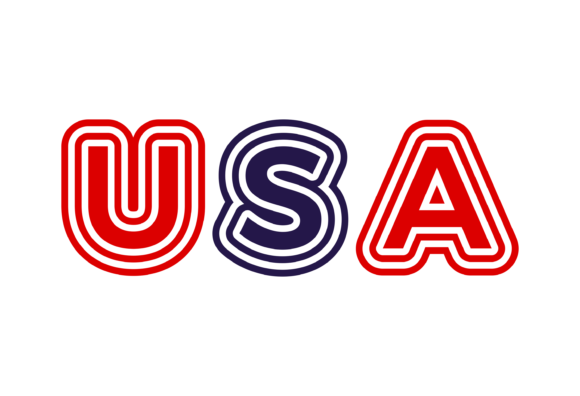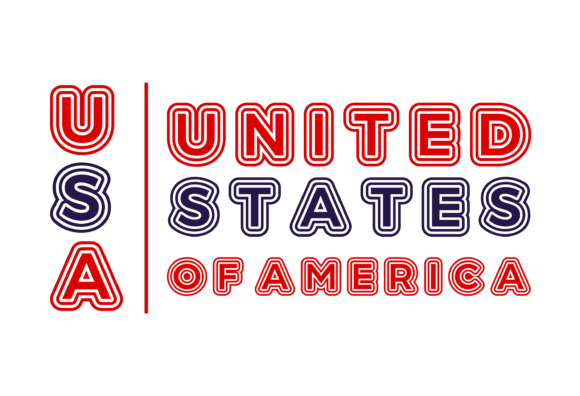
Dusky Double Bubble Font: Elevate Your Designs with a Modern Display Font
Are you tired of using the same old fonts in your designs? Do you want to take your creative projects to the next level? Look no further than the Dusky Double Bubble font! This modern display font is perfect for designers and crafters who want to add a touch of sophistication and whimsy to their work.
What is Dusky Double Bubble Font?
Dusky Double Bubble is a modern display font that features a unique and eye-catching design. The font is characterized by its double-bubble style letters, which give it a playful and fun vibe. The font is perfect for use in a variety of design projects, including posters, flyers, brochures, and more.
Key Features of Dusky Double Bubble Font
So, what makes Dusky Double Bubble font so special? Here are just a few of its key features:
- Unique Design: The double-bubble style letters are unlike anything you’ve seen before. They’re sure to grab attention and make your designs stand out.
- Modern Look: The font has a modern and sleek look that’s perfect for designers who want to create contemporary designs.
- Versatile: Dusky Double Bubble font can be used in a variety of design projects, from posters and flyers to brochures and more.
- Easy to Read: Despite its unique design, the font is easy to read, making it perfect for use in body text as well as headlines.
How to Use Dusky Double Bubble Font
So, how can you use Dusky Double Bubble font in your designs? Here are a few ideas to get you started:
- Posters and Flyers: Use the font to create eye-catching posters and flyers that are sure to grab attention.
- Branding and Packaging: Use the font to create unique and memorable branding and packaging designs.
- Social Media Graphics: Use the font to create social media graphics that are sure to stand out in crowded feeds.
- Invitations and Cards: Use the font to create beautiful and unique invitations and cards.
Tips for Getting the Most Out of Dusky Double Bubble Font
Here are a few tips for getting the most out of Dusky Double Bubble font:
- Experiment with Colors: The font looks great in a variety of colors, so don’t be afraid to experiment and find the perfect color scheme for your design.
- Play with Size: The font looks great in a range of sizes, from small and subtle to large and bold.
- Combine with Other Fonts: Try combining Dusky Double Bubble font with other fonts to create a unique and interesting look.
Dusky Double Bubble font is a modern display font that’s perfect for designers and crafters who want to take their designs to the next level. With its unique double-bubble style letters and modern look, it’s sure to grab attention and make your designs stand out. So why not give it a try and see what amazing designs you can create?